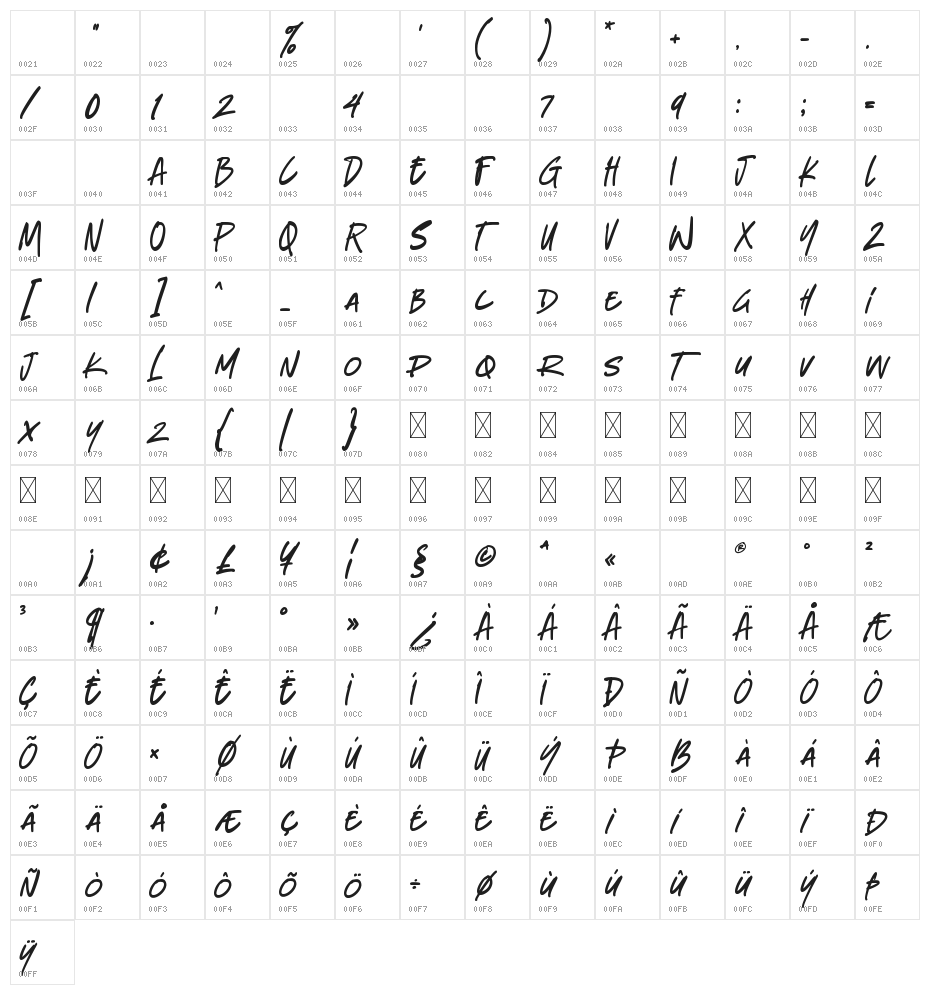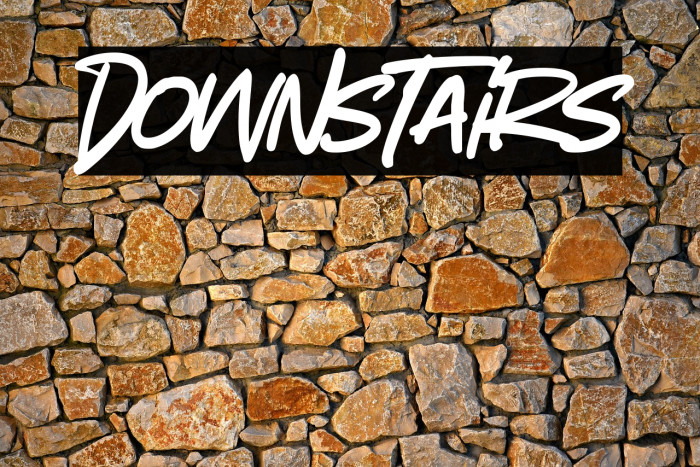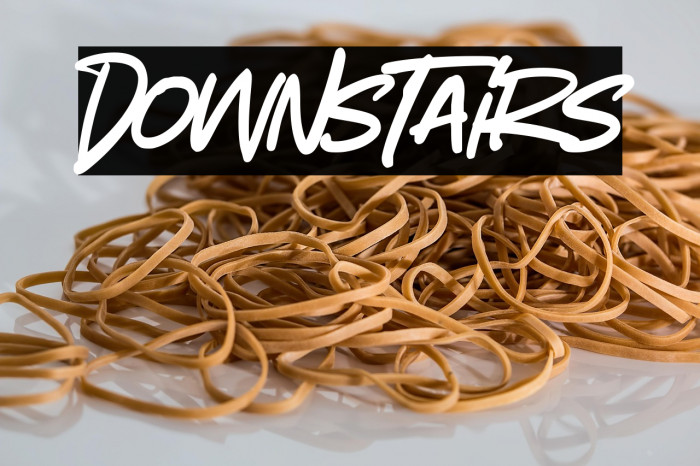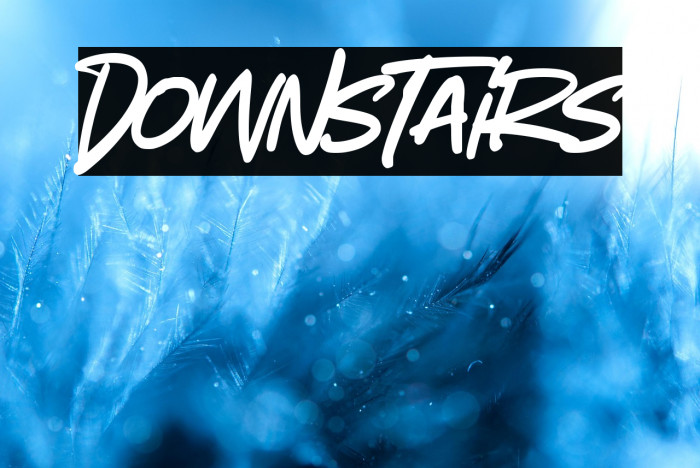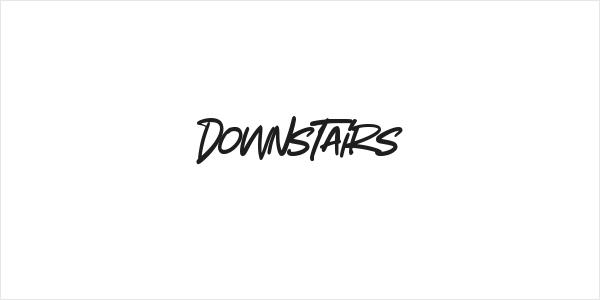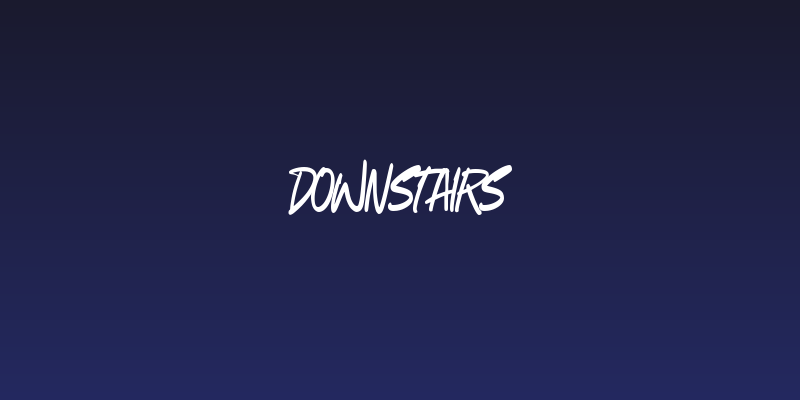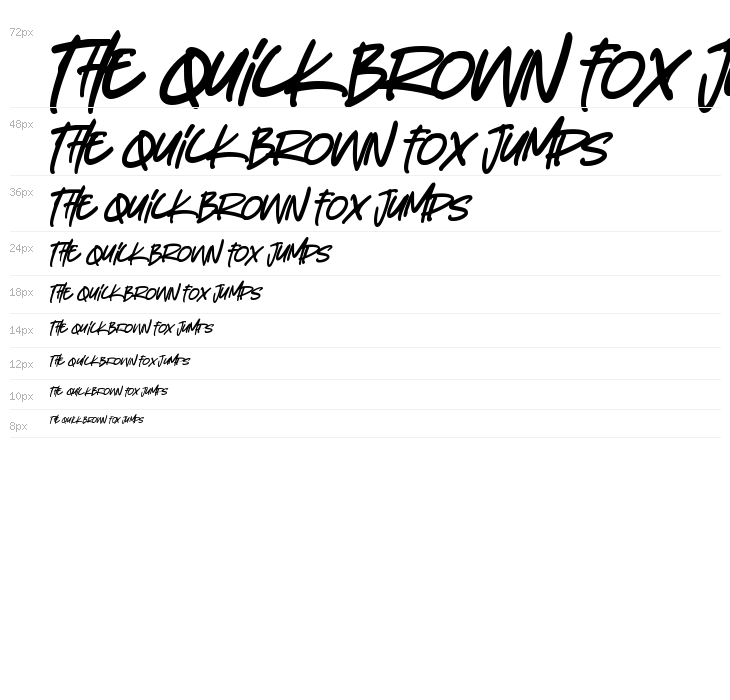
Downstairs Font
Downstairs Description
This font features a dynamic and energetic handwritten style, characterized by its bold and fluid strokes. The letters are slightly slanted, giving a sense of motion and spontaneity. The uppercase and lowercase letters maintain a consistent style, with a playful yet legible appearance. The numbers and special characters follow the same aesthetic, ensuring a cohesive look across all text. The overall design is expressive, making it suitable for projects that require a personal touch.
| Proposed Projects | Ideal for branding, posters, social media graphics, and any project that benefits from a personal, dynamic touch. |